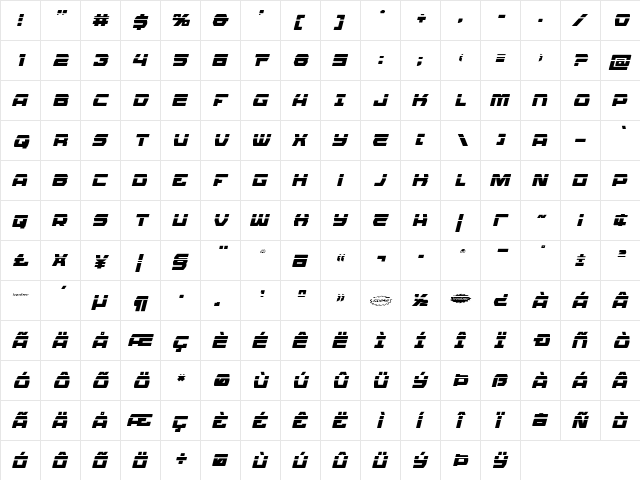
Olympic Carrier Laser Italic Italic
Design Context for Olympic Carrier Laser Italic Typeface
Olympic Carrier Laser Italic is a composed and adaptable typeface that performs quietly and consistently across a wide range of design contexts. The slanted form adds forward momentum and visual energy.
Pro Tip: Try Olympic Carrier Laser Italic for annotation and caption copy alongside an upright companion — the contrast in angle creates a dynamic but ordered typographic system.